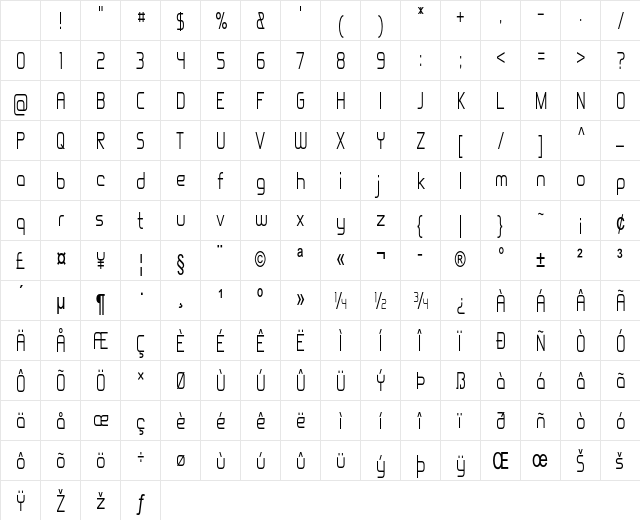
Complete Stillwater Condensed Regular glyph index. Displaying only characters natively supported by Stillwater Condensed Regular font.
Stillwater is a composed and adaptable typeface that performs quietly and consistently across a wide range of design contexts. Its narrow stance lets it pack a punch even in space-constrained designs.